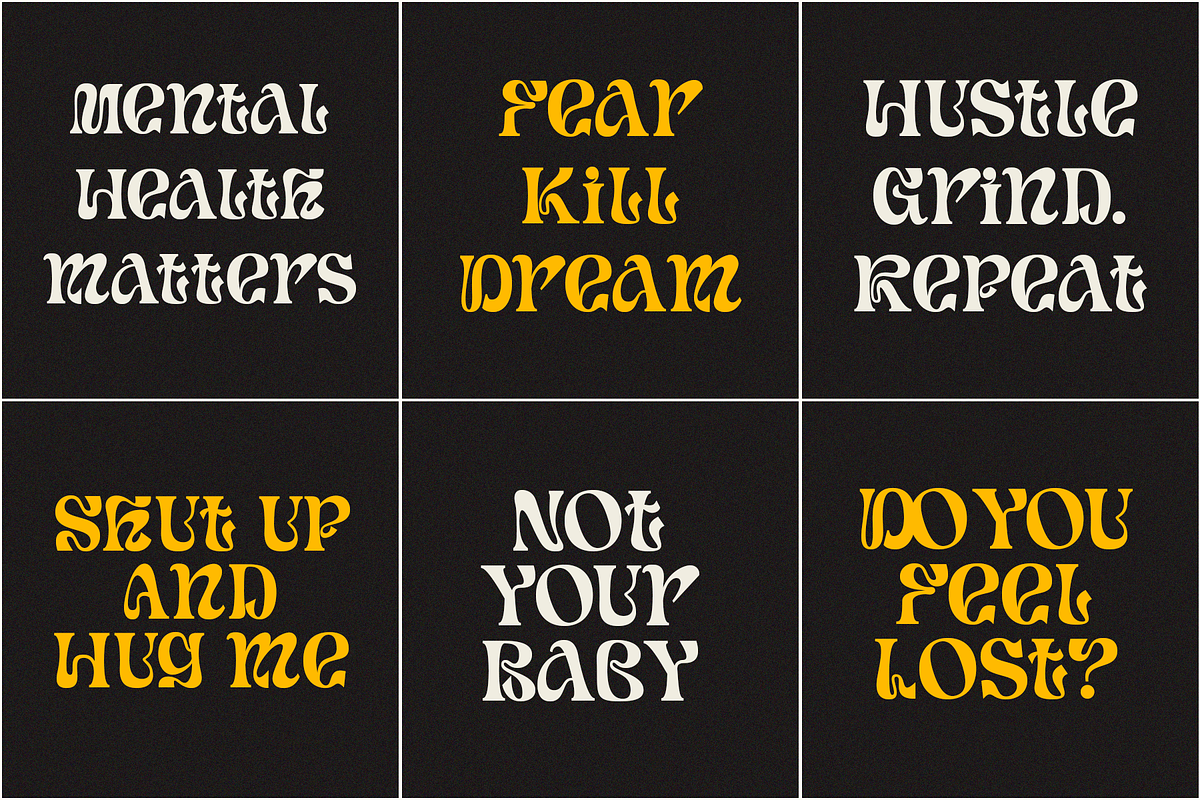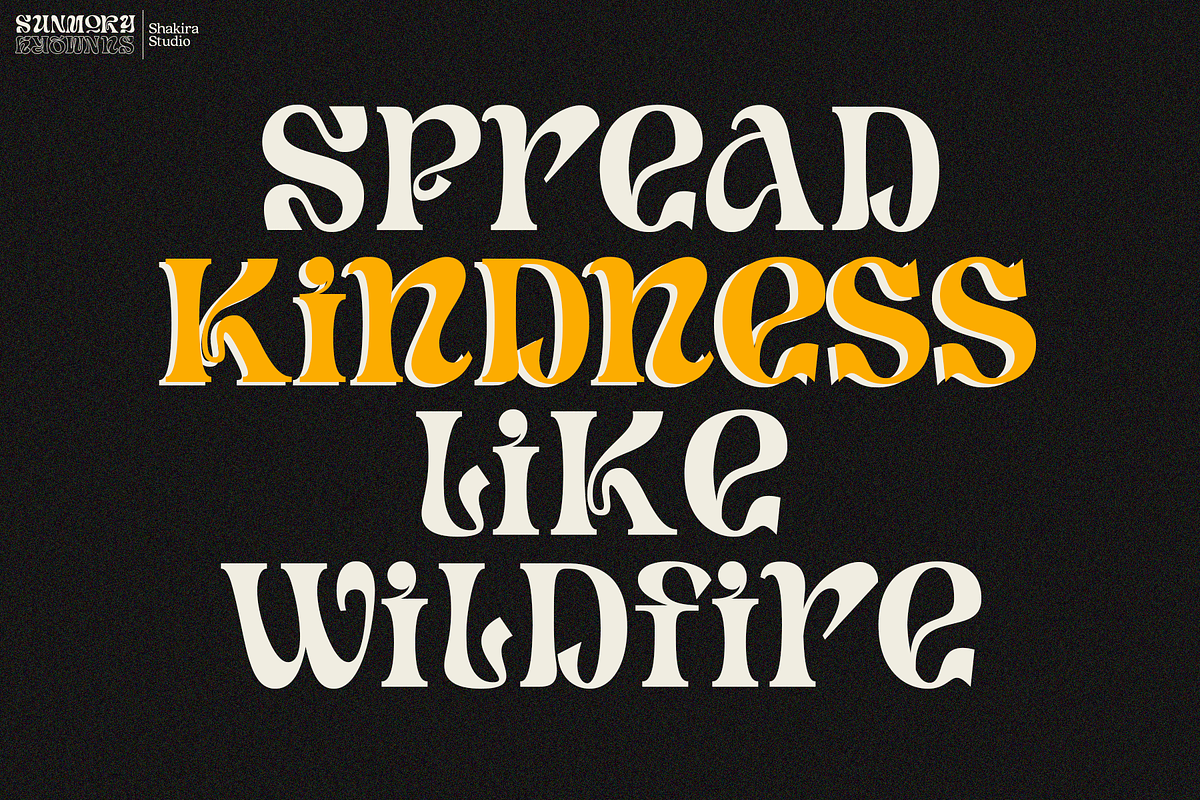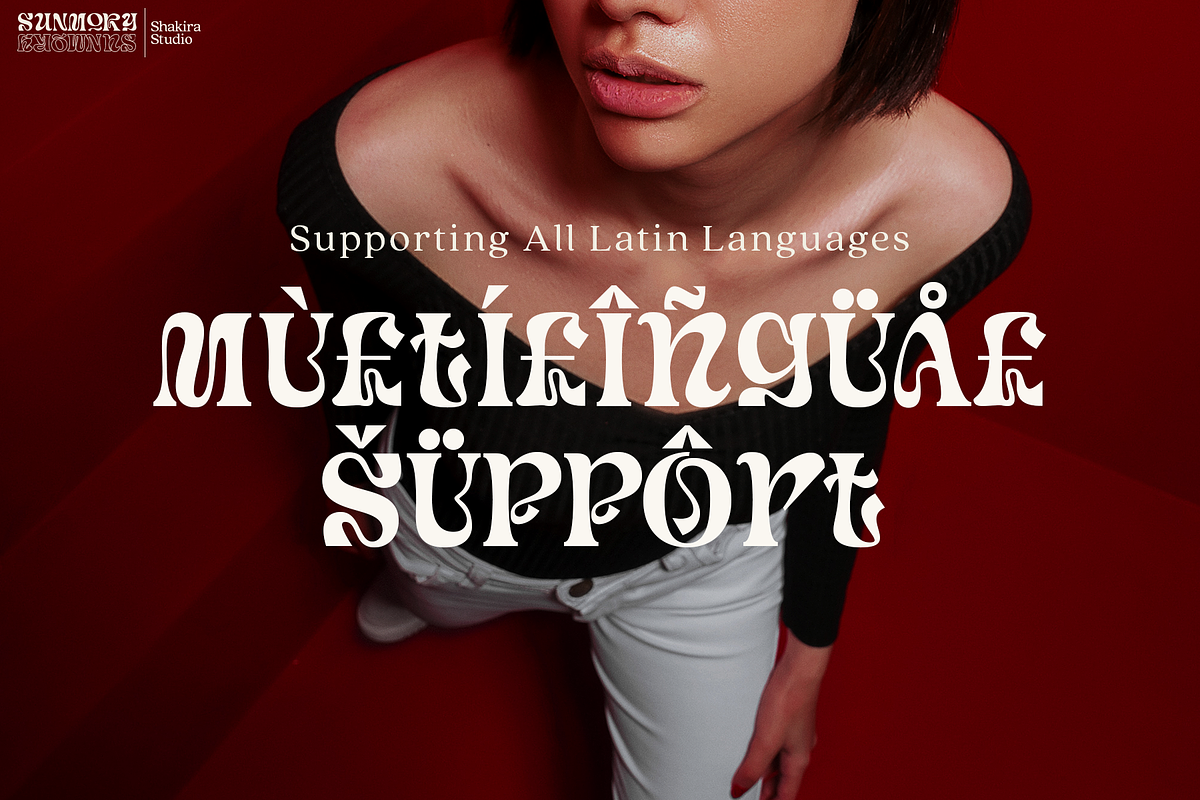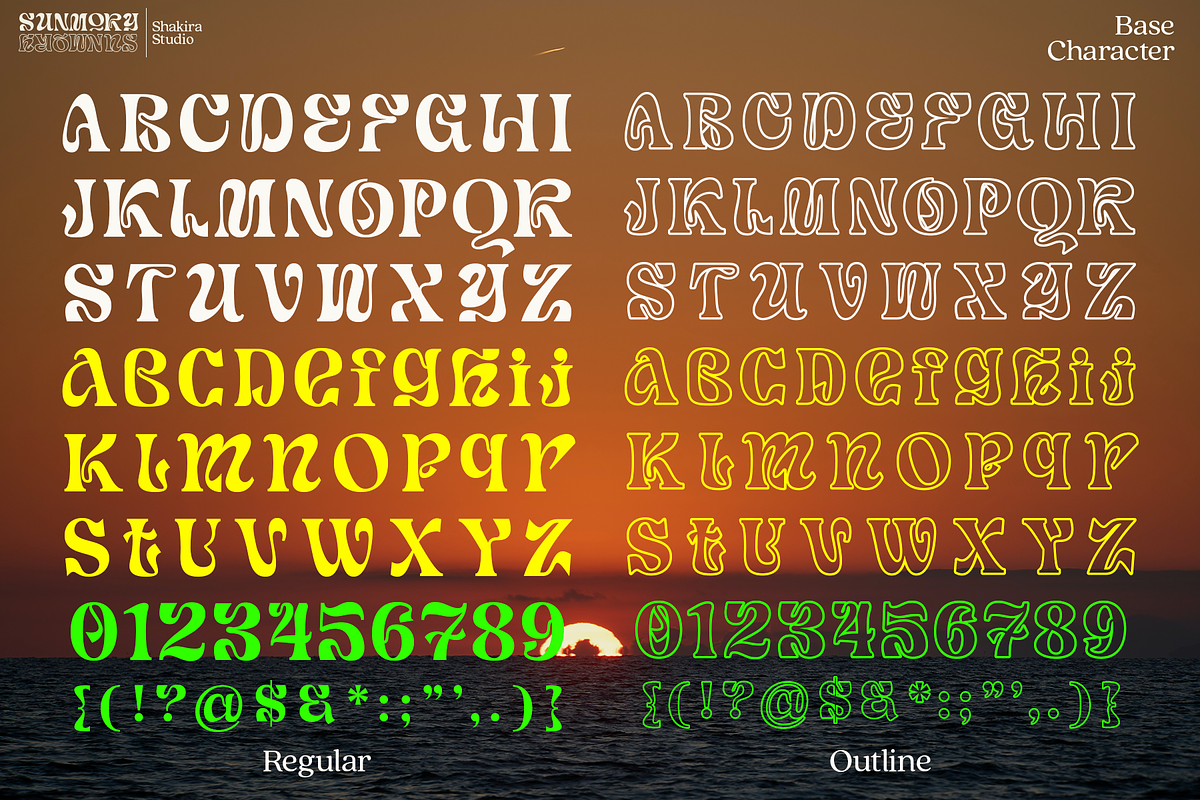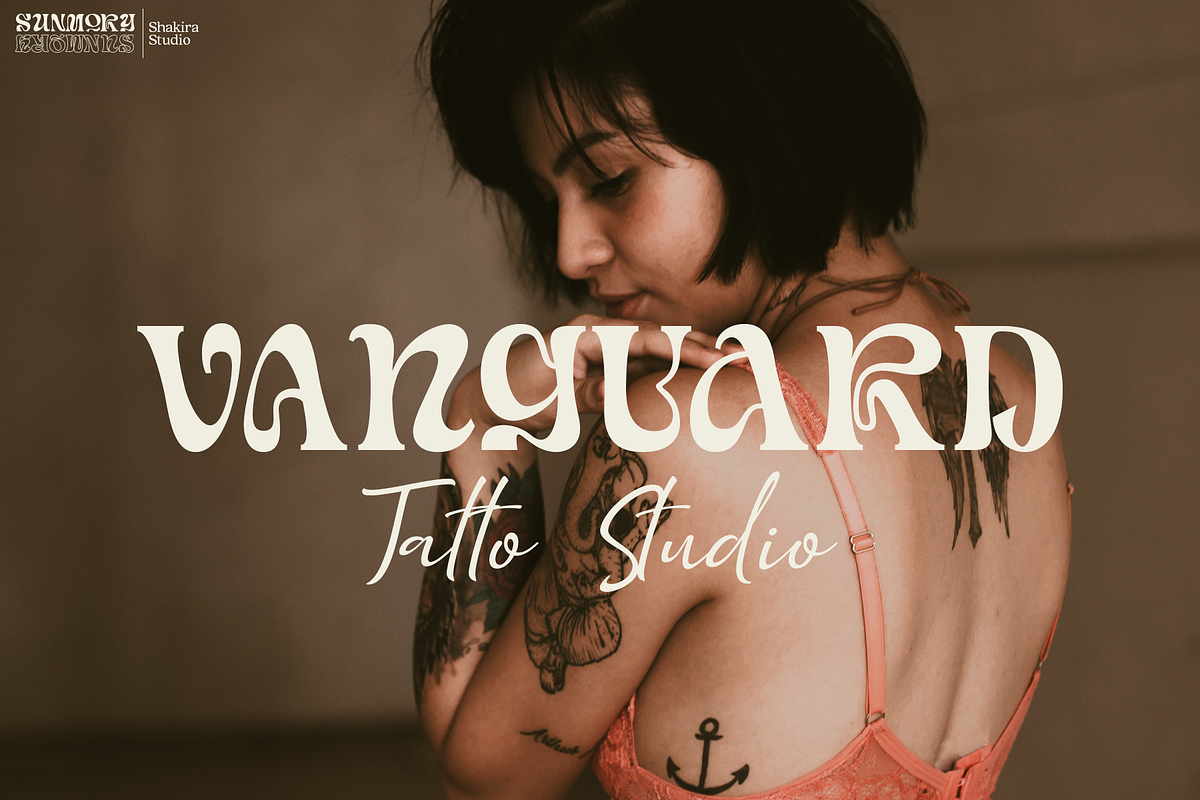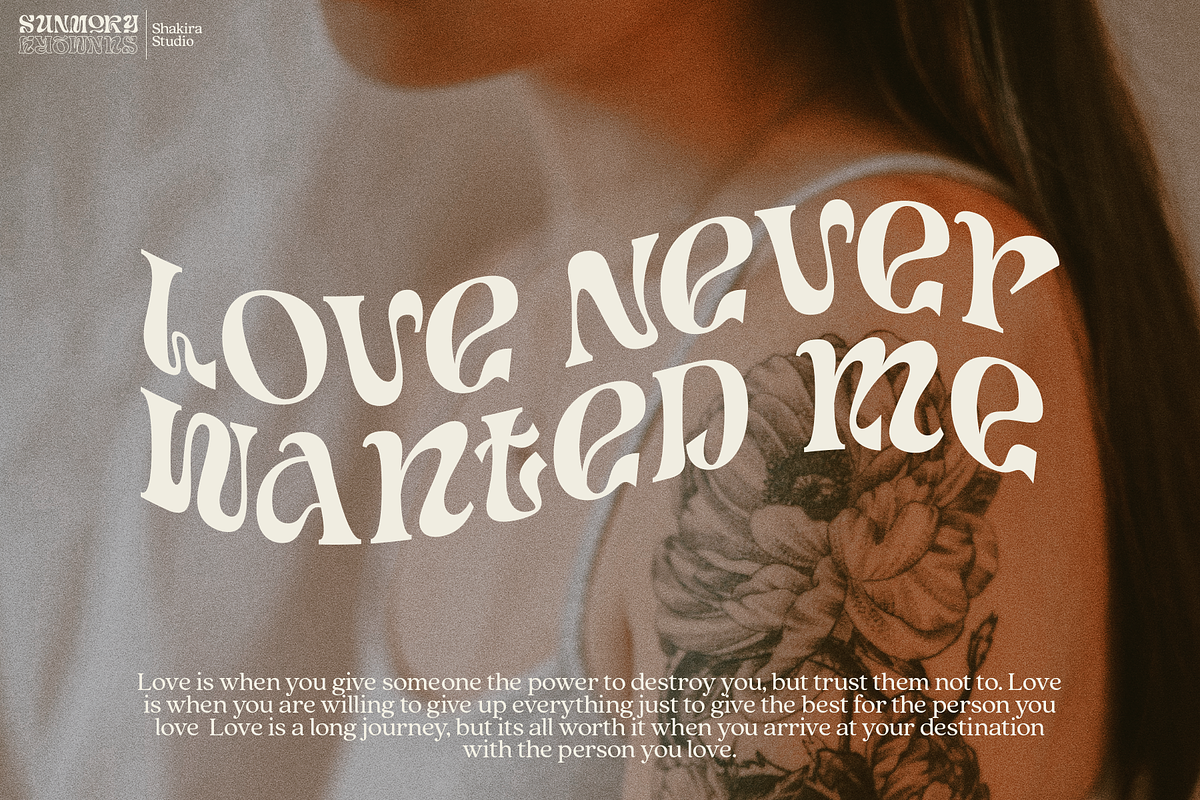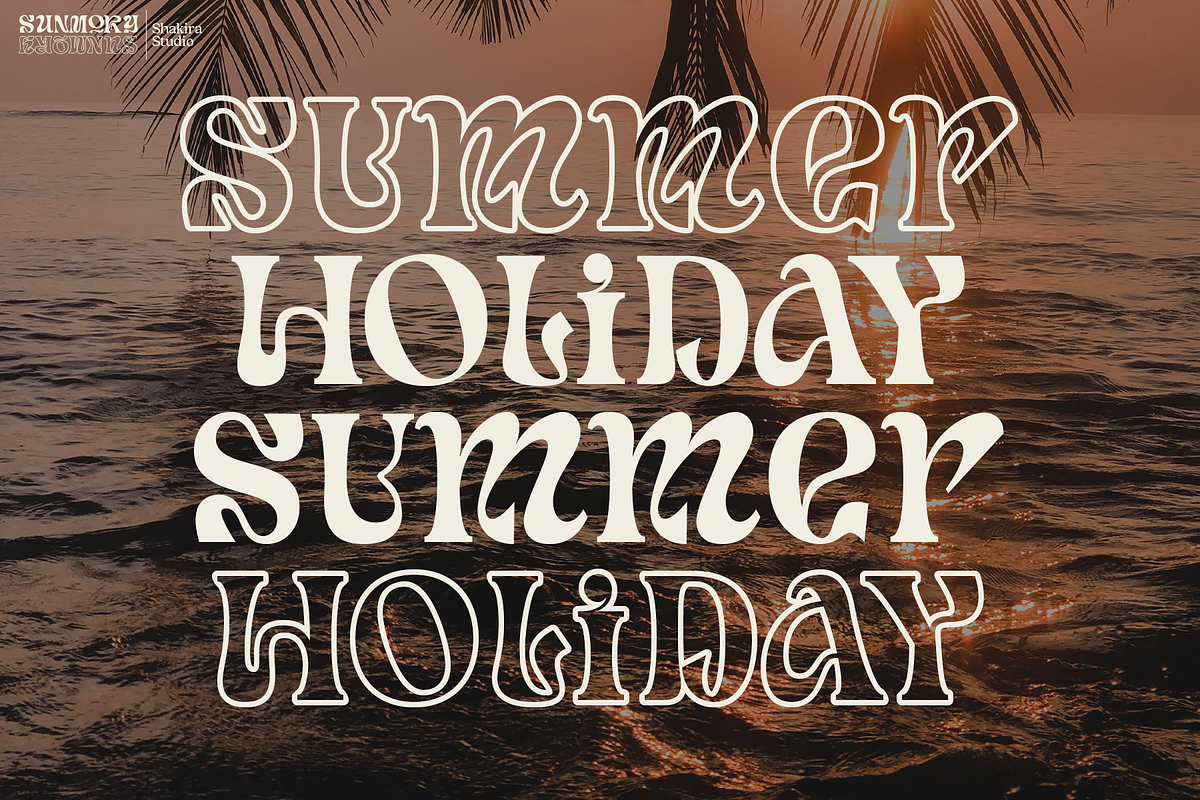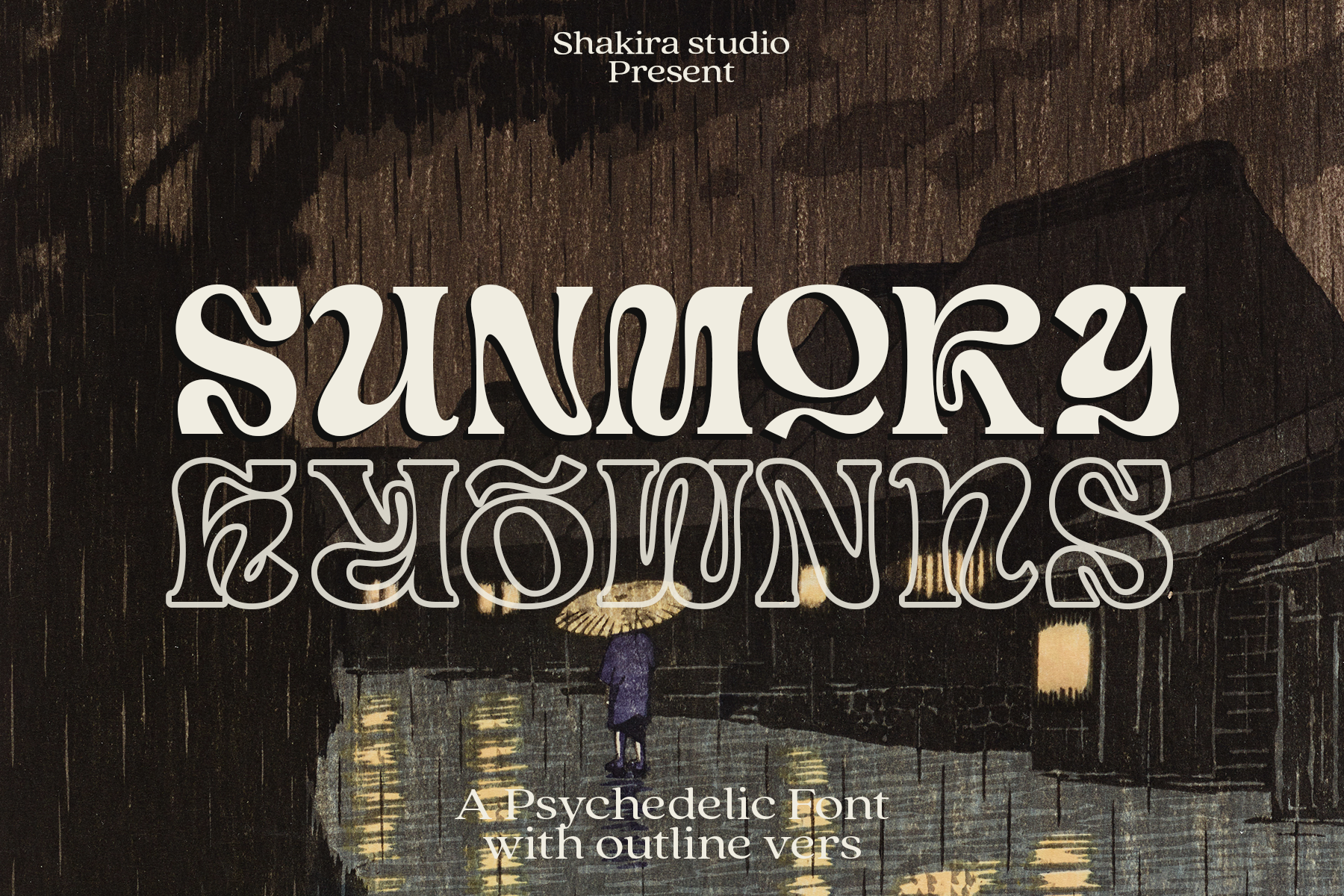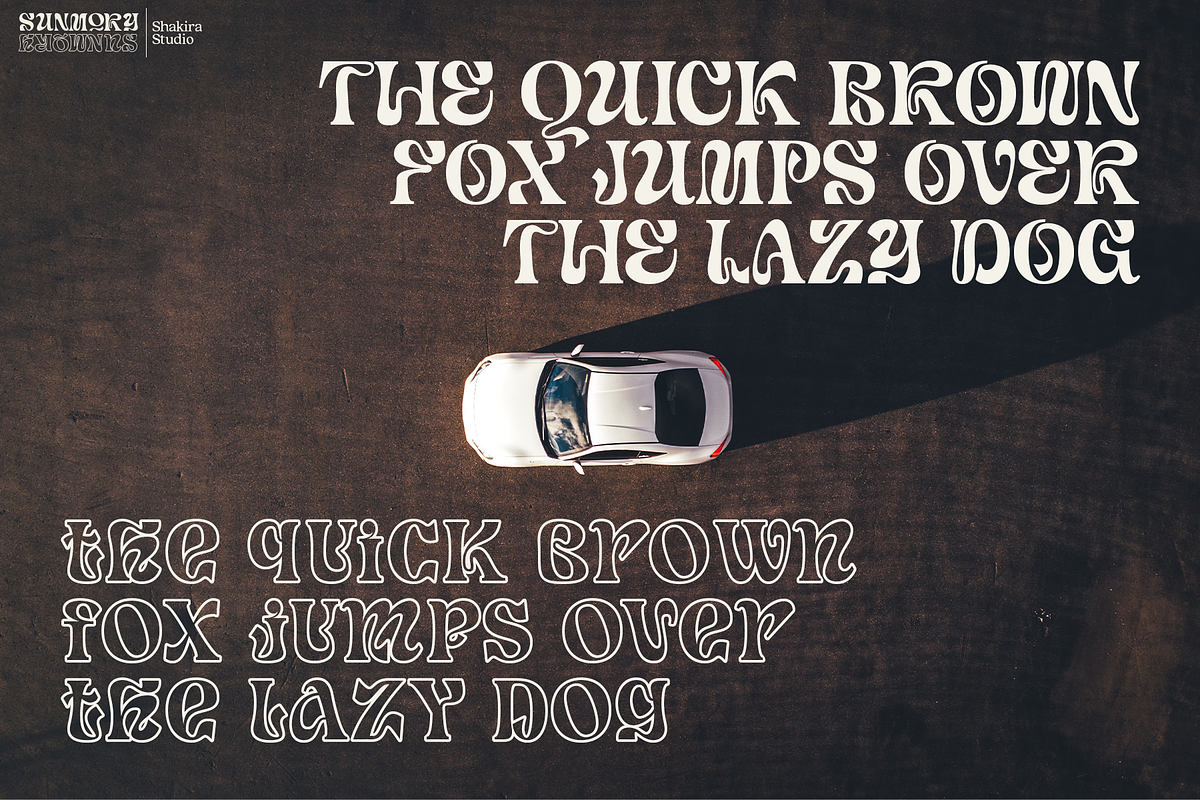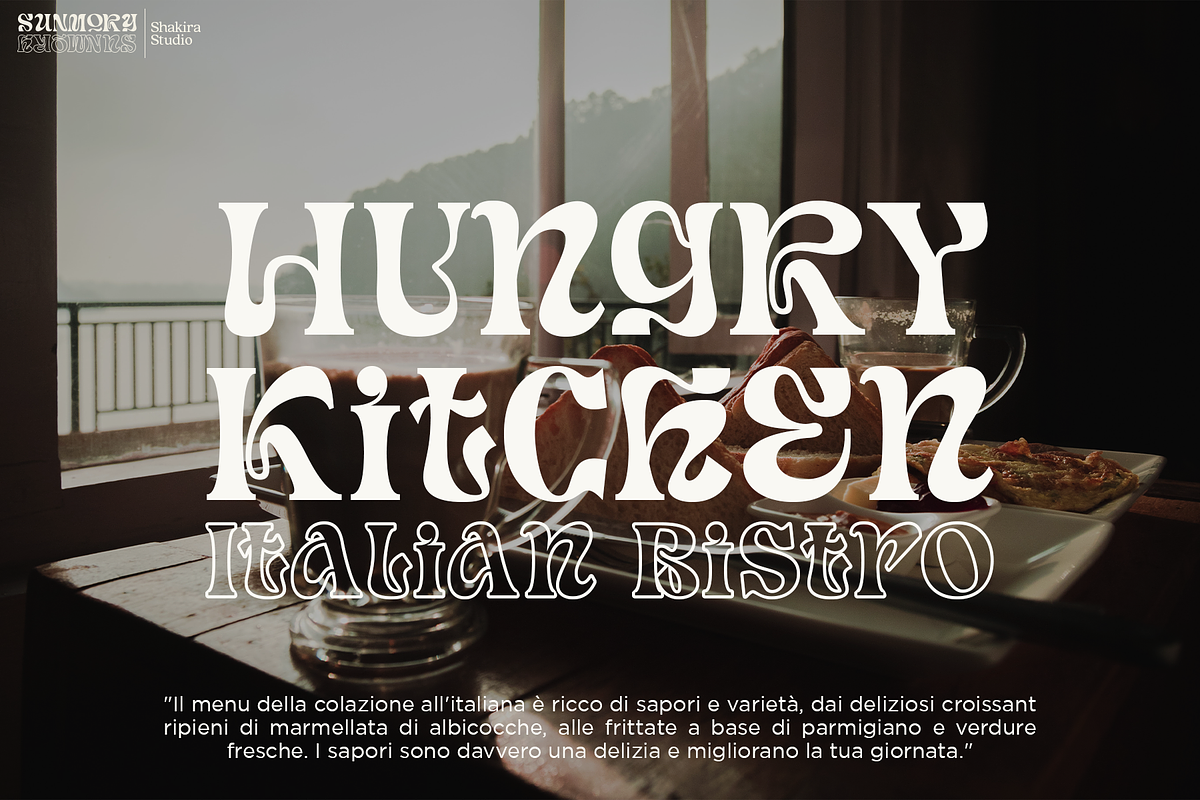
Sunmory - Serif Font
Start good day for new font! present to you, Sunmory!
Sunmory is a psychedelic serif display font that has two versions, Regular and Outline. With a curved and sinuous design, Sunmory presents a character full of color and energy. Each letter is intricately detailed and eye-catching, with harmonious and hypnotic color combinations.
Sunmory is a font that is especially suitable for design projects related to psychedelic, retro, or alternative genres. From product displays to print media such as brochures, posters, and packaging designs, this font will give your projects a unique and eye-catching look.
- Unique letterforms